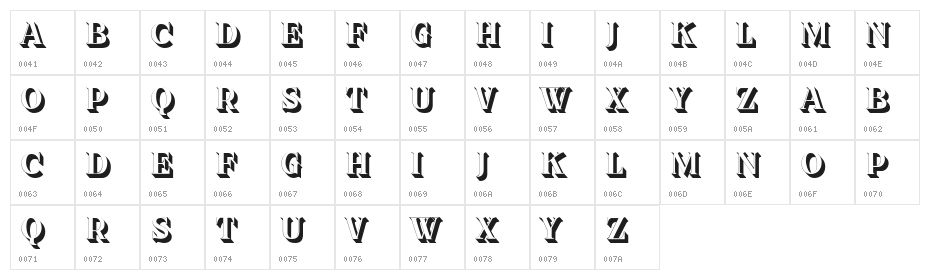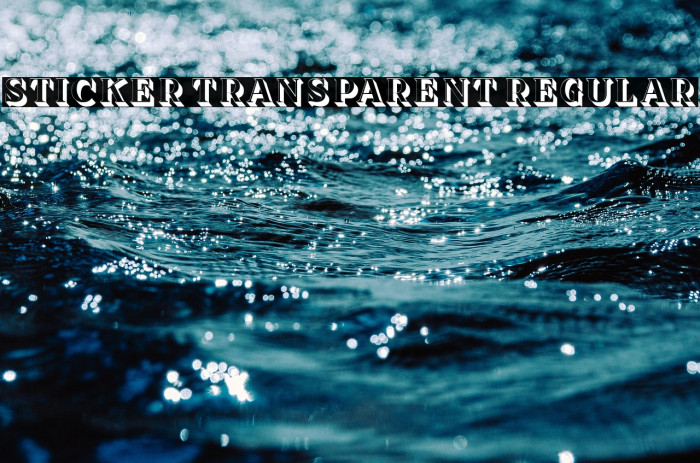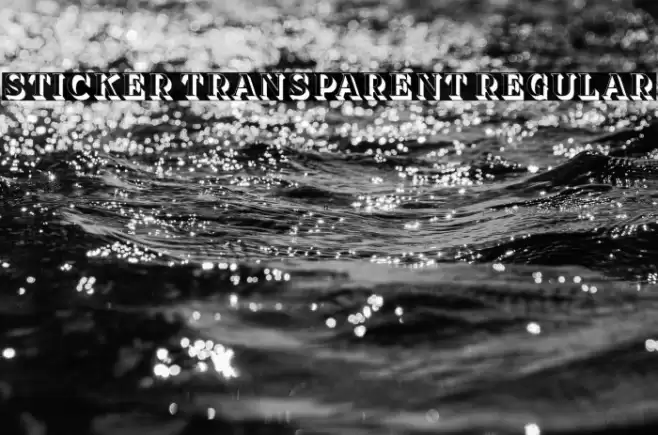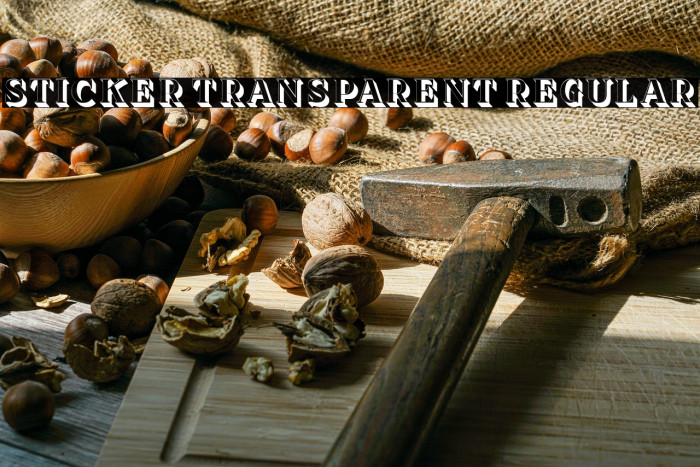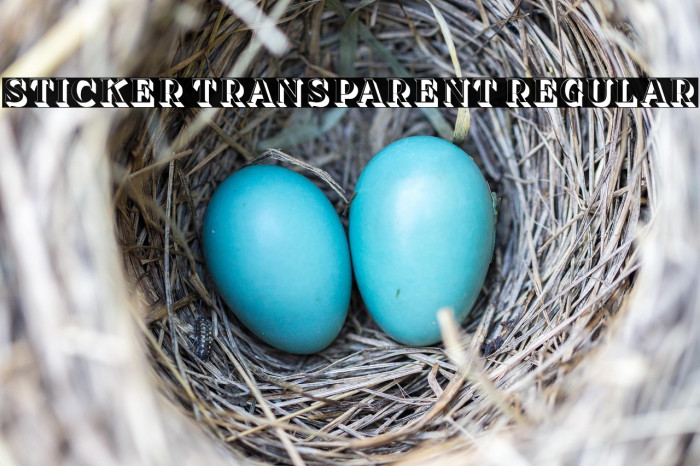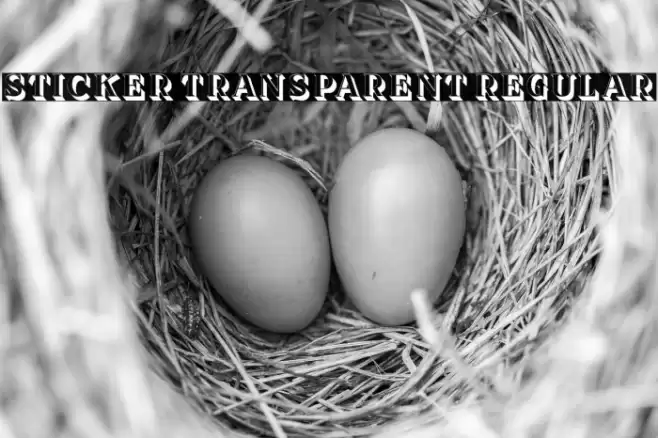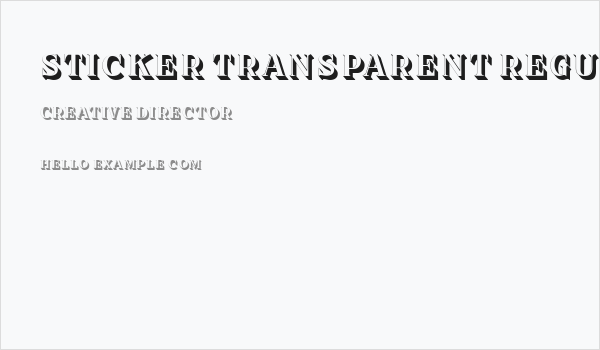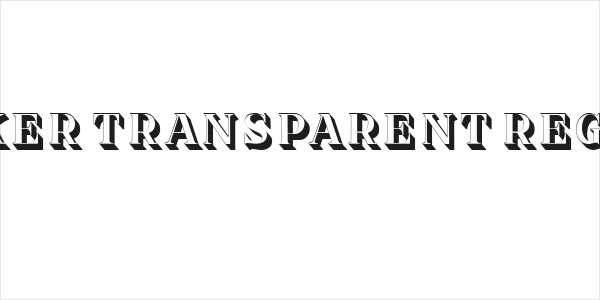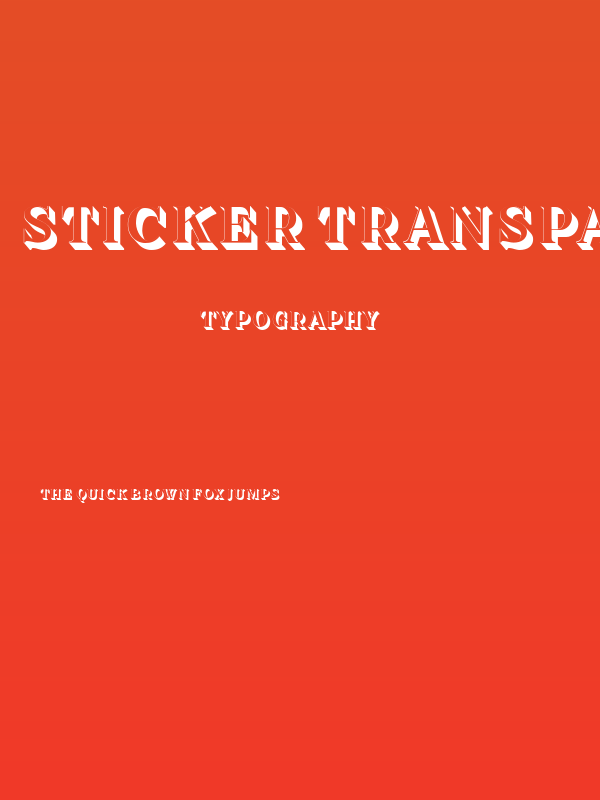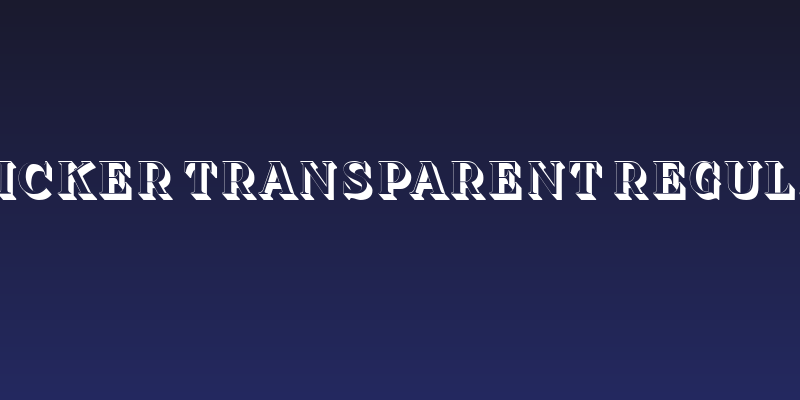
Sticker Transparent Regular Font
Sticker Transparent Regular Description
This font features a bold and striking 3D effect, with each character having a shadow that gives it a sense of depth and dimension. The letters are capitalized and have a strong, commanding presence, making them ideal for attention-grabbing headlines or titles. The style is reminiscent of vintage signage, with a modern twist that adds a layer of sophistication. The characters are well-spaced, ensuring readability while maintaining their decorative appeal. The font's unique design makes it suitable for projects that require a bold statement, such as posters, logos, or branding materials.
| Overall Style | Vintage, Modern |
| Proposed Projects | Ideal for posters, logos, branding, and any project needing a bold, eye-catching font. |